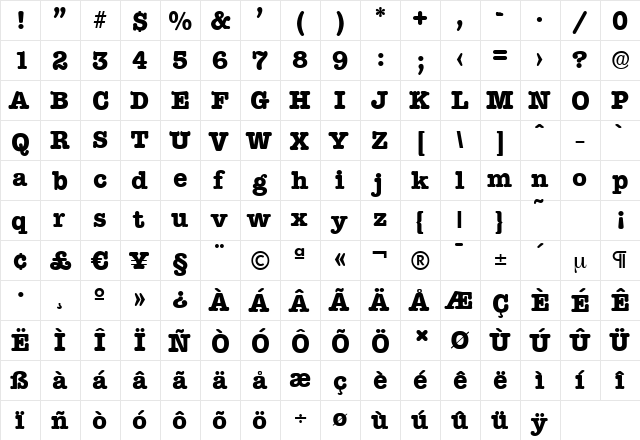
TypewriterSerial-Xbold Regular
Regular · SoftMaker Software GmbH SoftMaker Software GmbH ·
Foundry SoftMaker Software GmbH
FoundrySoftMaker Software GmbH
DesignerSoftMaker Software GmbH
Design Context for TypewriterSerial-Xbold Typeface
TypewriterSerial-Xbold brings the precise, column-aligned rhythm of monospaced typography to designs that value technical clarity and systematic order. The heavy weight commands attention and anchors typographic hierarchies.
Pro Tip: Pair TypewriterSerial-Xbold with a proportional sans for UI contexts where code-style labels and regular body copy need to coexist.